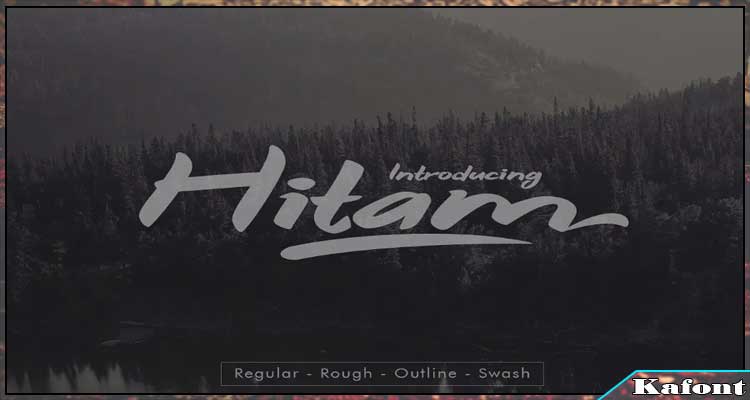
Hitam Bold Font
It is a creation of Khurasan, the author that designed and distributed it.
You are able to find that the existing release is a fun market pen typeface. It comprises a style that can bring back a strange feeling when using.
In summary, the object is applicable to many different areas. They may be logos, branding, or greeting cards. However, these fields can relate to signatures, posters, and any sketch that you will introduce.
Feature
This typeface, designed by khurasan, boasts thick and heavy letterforms that command attention and make a strong visual impact. Let’s delve into its features:
Quirky Style: Hitam Bold exudes a playful and market pen-inspired vibe. Its unique design adds character to any project.
Versatility: Whether you’re creating logos, branding materials, greeting cards, or posters, Hitam Bold adapts effortlessly.
Stylistic Alternates and Swashes: Dive into a world of creative possibilities with various stylistic alternates and swashes.
Multilingual Support: Communicate seamlessly across languages, as Hitam Bold supports a wide range of characters.
PUA Encoding: Access special characters easily for a polished look in your designs.
Usage Scenarios:
- Headlines and Titles: Use Hitam Bold to make headlines pop and emphasize key information.
- Logos and Branding: Craft memorable logos that leave a lasting impression.
- Event Posters: Add flair to event posters, invitations, and social media graphics.